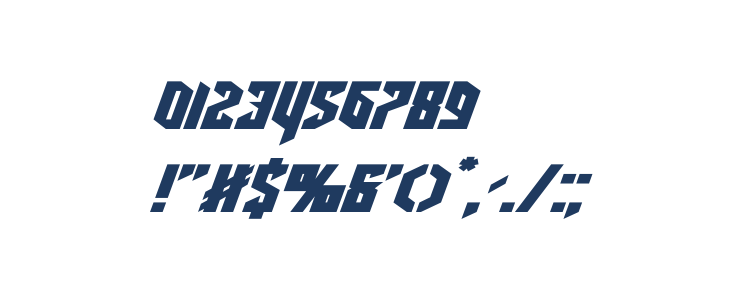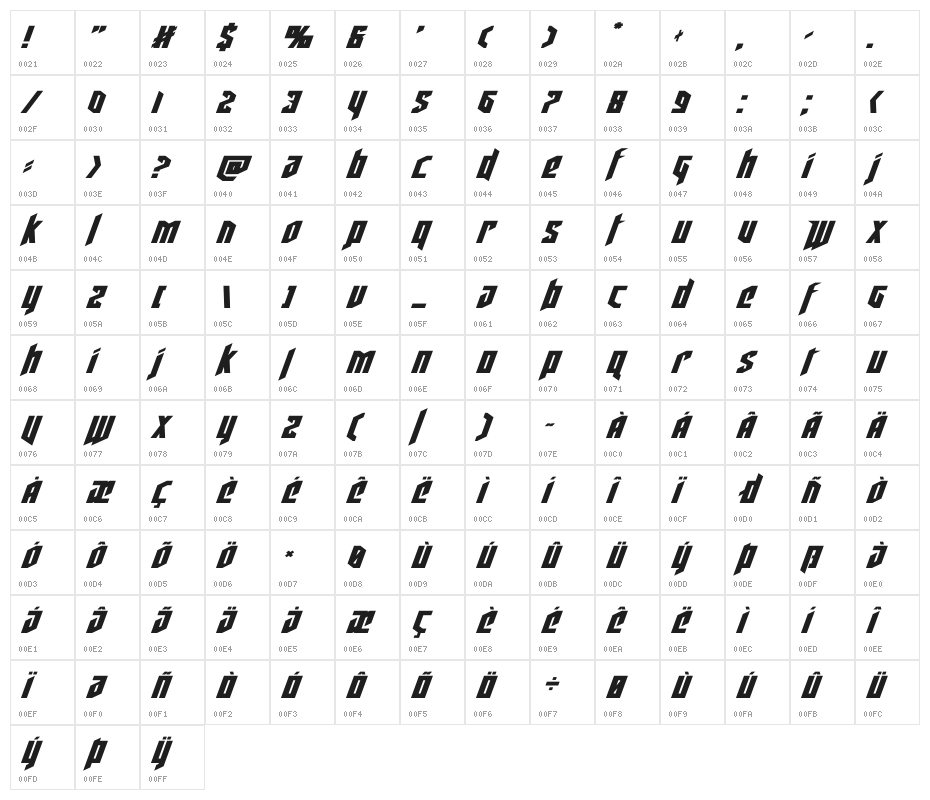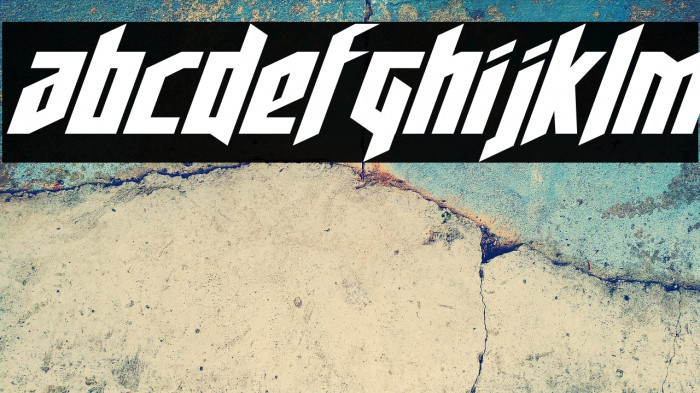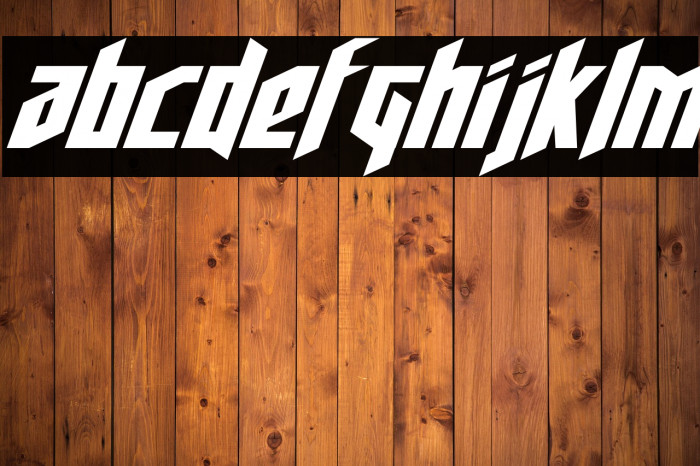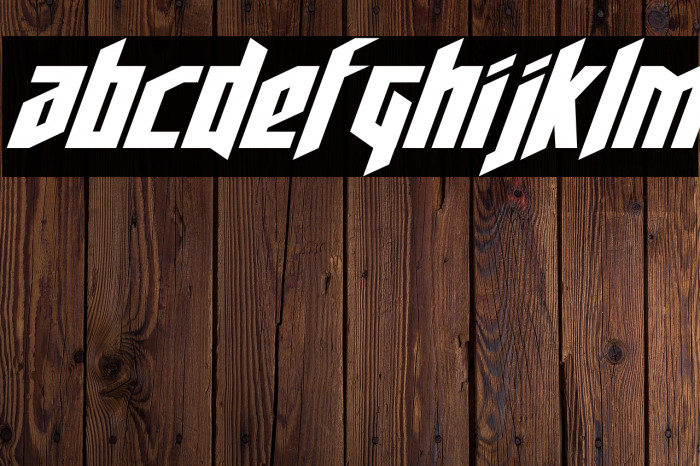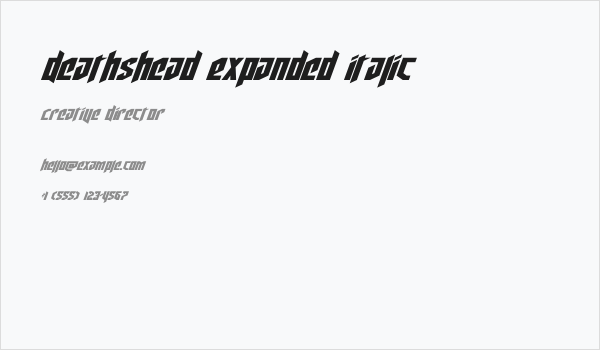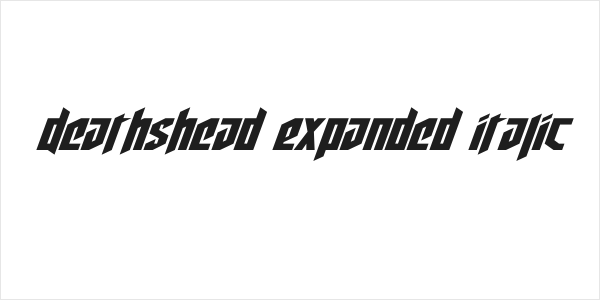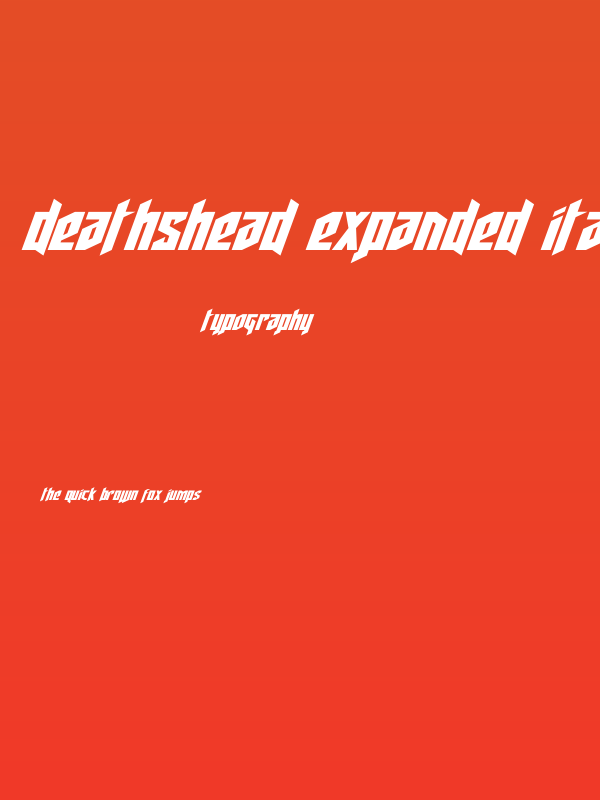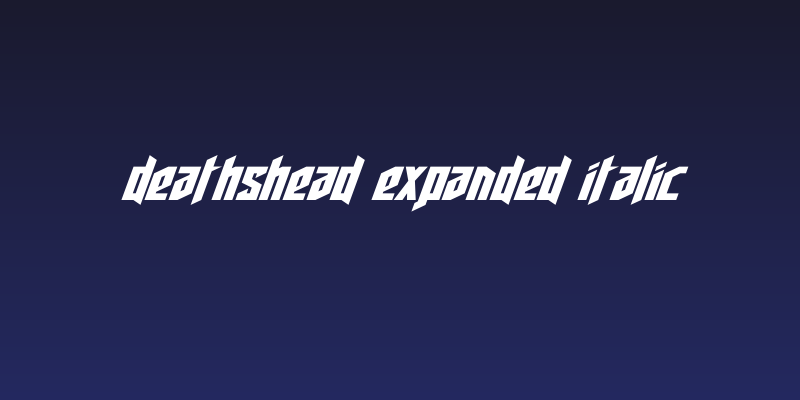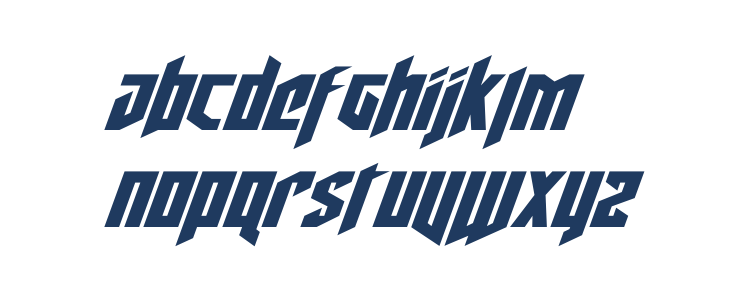
Deathshead Expanded Italic Font
Deathshead Expanded Italic Description
This font features a bold, angular design with a distinctly aggressive and futuristic aesthetic. The characters are sharply cut with exaggerated angles and a slanted orientation, giving it a dynamic and energetic feel. The uppercase and lowercase letters maintain a consistent style, with the lowercase letters being slightly more compact. Numbers and special characters follow the same angular and bold design, ensuring uniformity across the typeface. The font's expanded width and italic slant contribute to its striking appearance, making it ideal for attention-grabbing designs.
| Overall Style | Futuristic, Aggressive |
| Proposed Projects | Ideal for use in video game graphics, movie posters, branding for tech companies, or any project requiring a bold and futuristic look. |